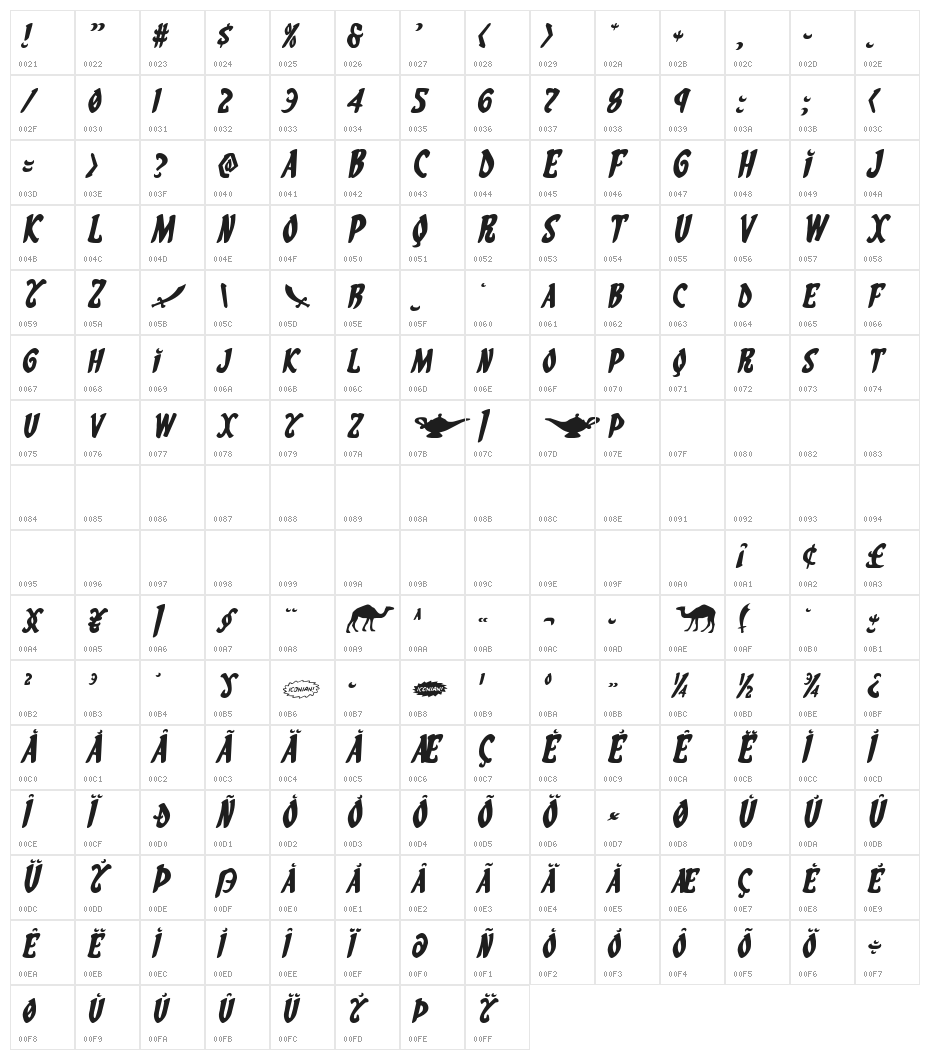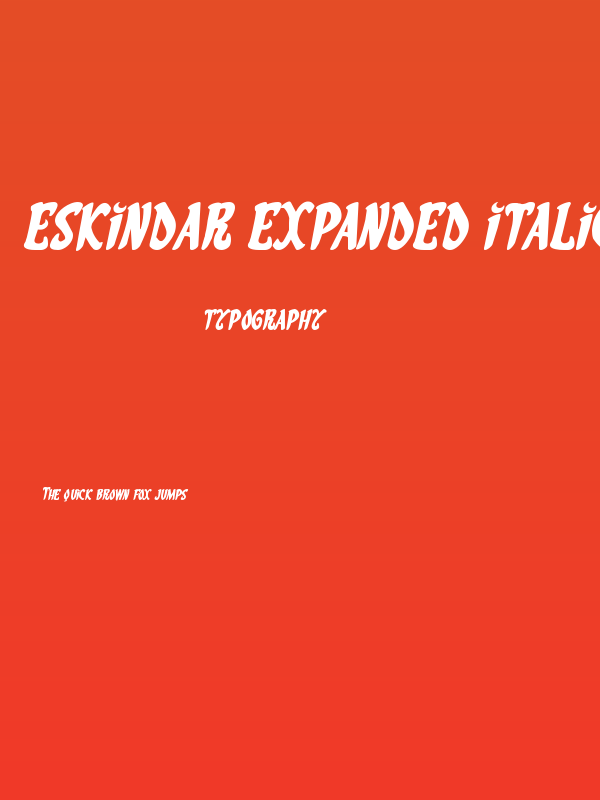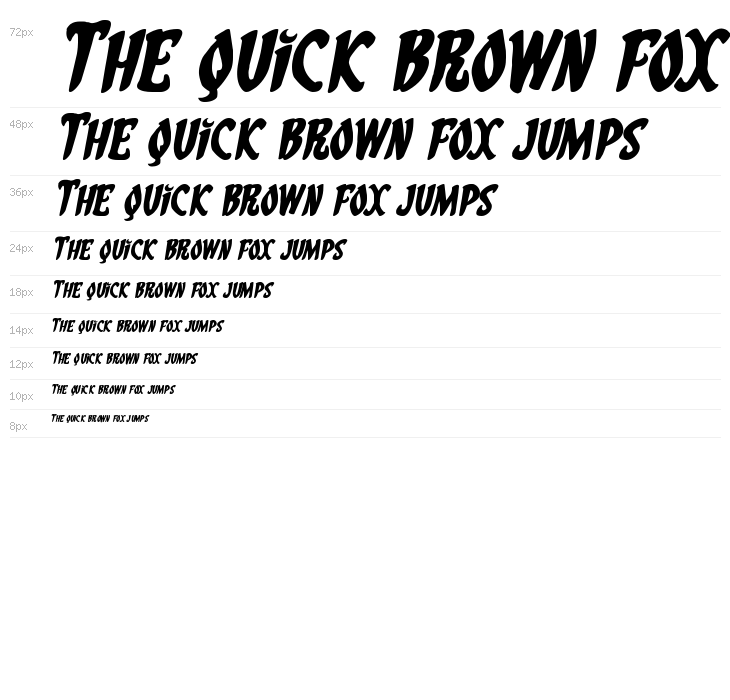
Eskindar Expanded Italic Font
Eskindar Expanded Italic Description
This font features a bold and dynamic style with an expanded and italicized form. The characters exhibit a strong presence with thick strokes and a slight slant, giving a sense of movement and energy. The uppercase and lowercase letters maintain a consistent style, with unique flourishes that add a decorative touch. The numbers are equally bold, ensuring readability and impact. Special characters are designed to match the overall aesthetic, making this font suitable for attention-grabbing designs.